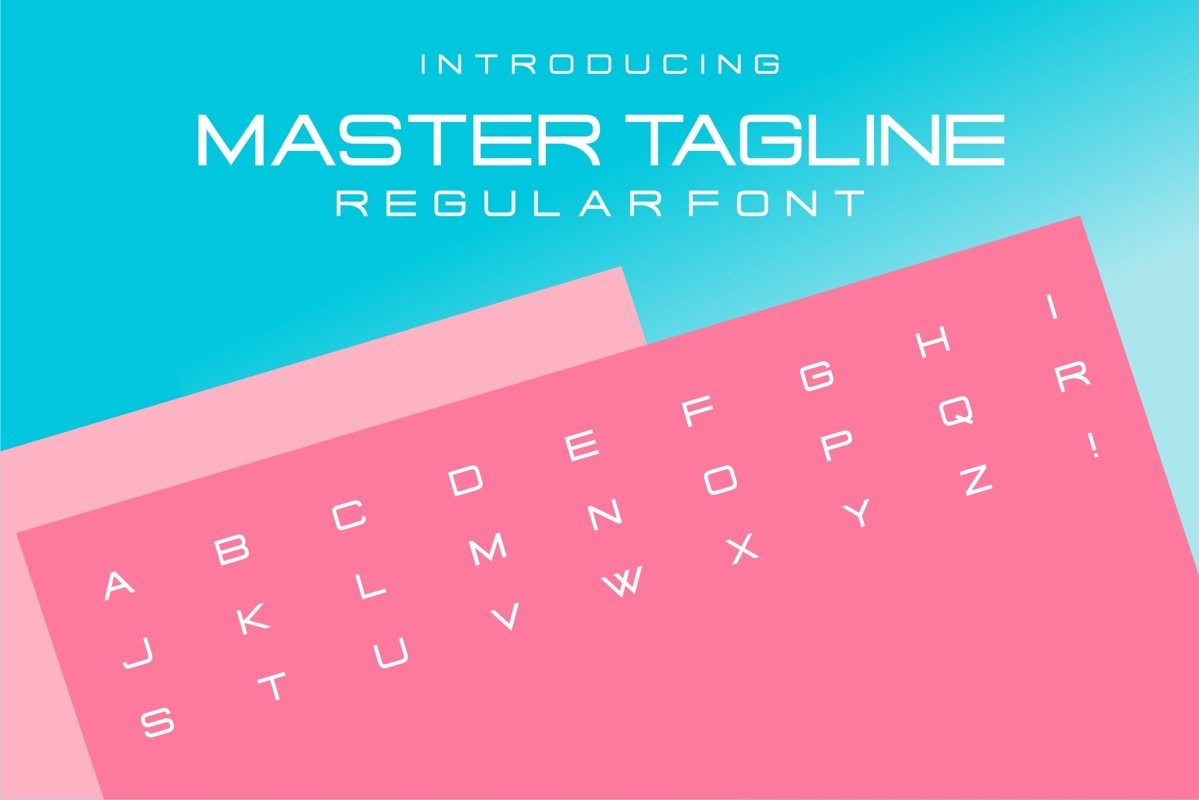
Master Tagline Logo Font
Master Tagline
A very nice font for tagline/logo/display. Don’t spend hours and hours searching for another display font when you can buy this nice font and kick start your new brand within minutes.